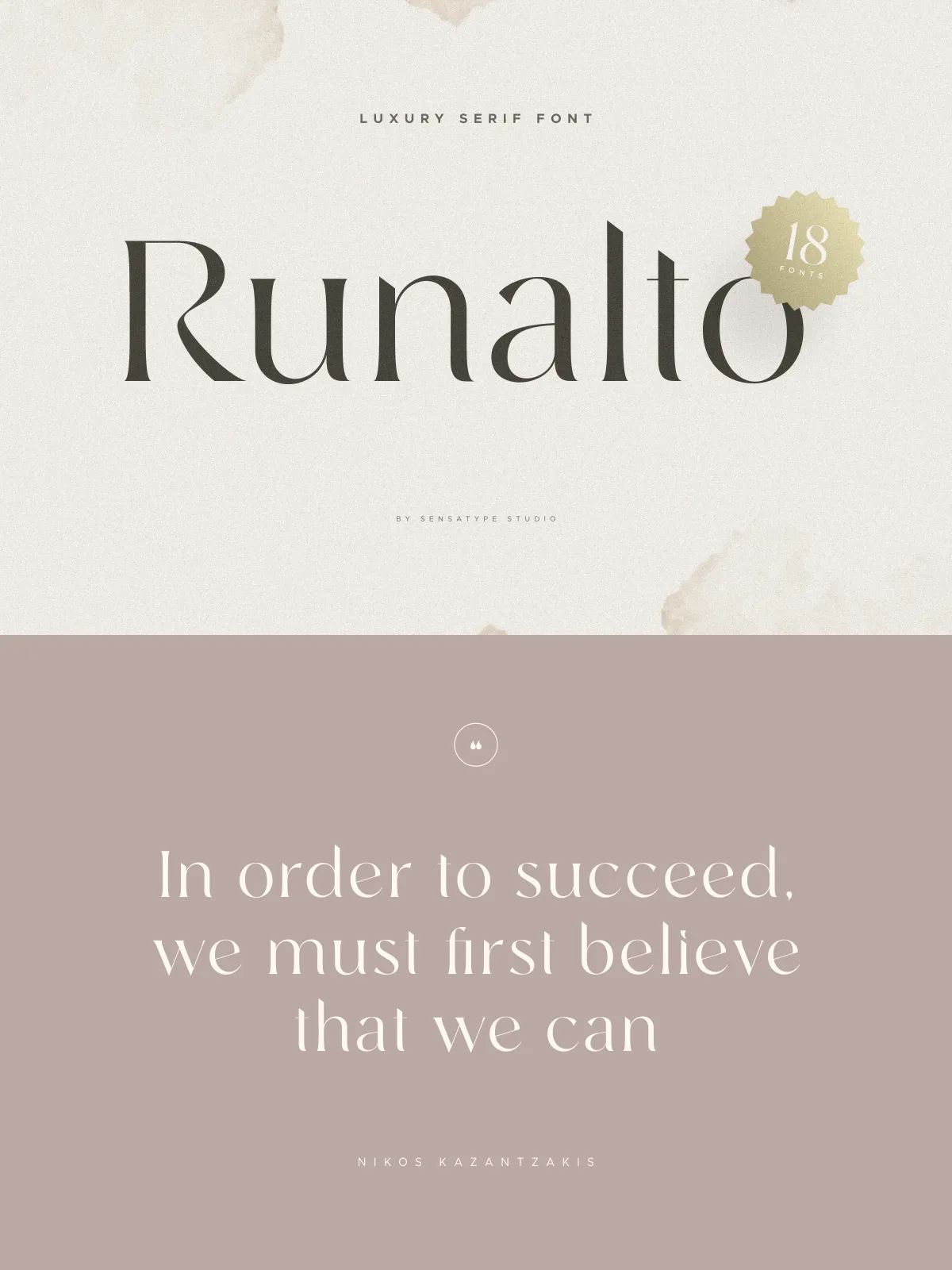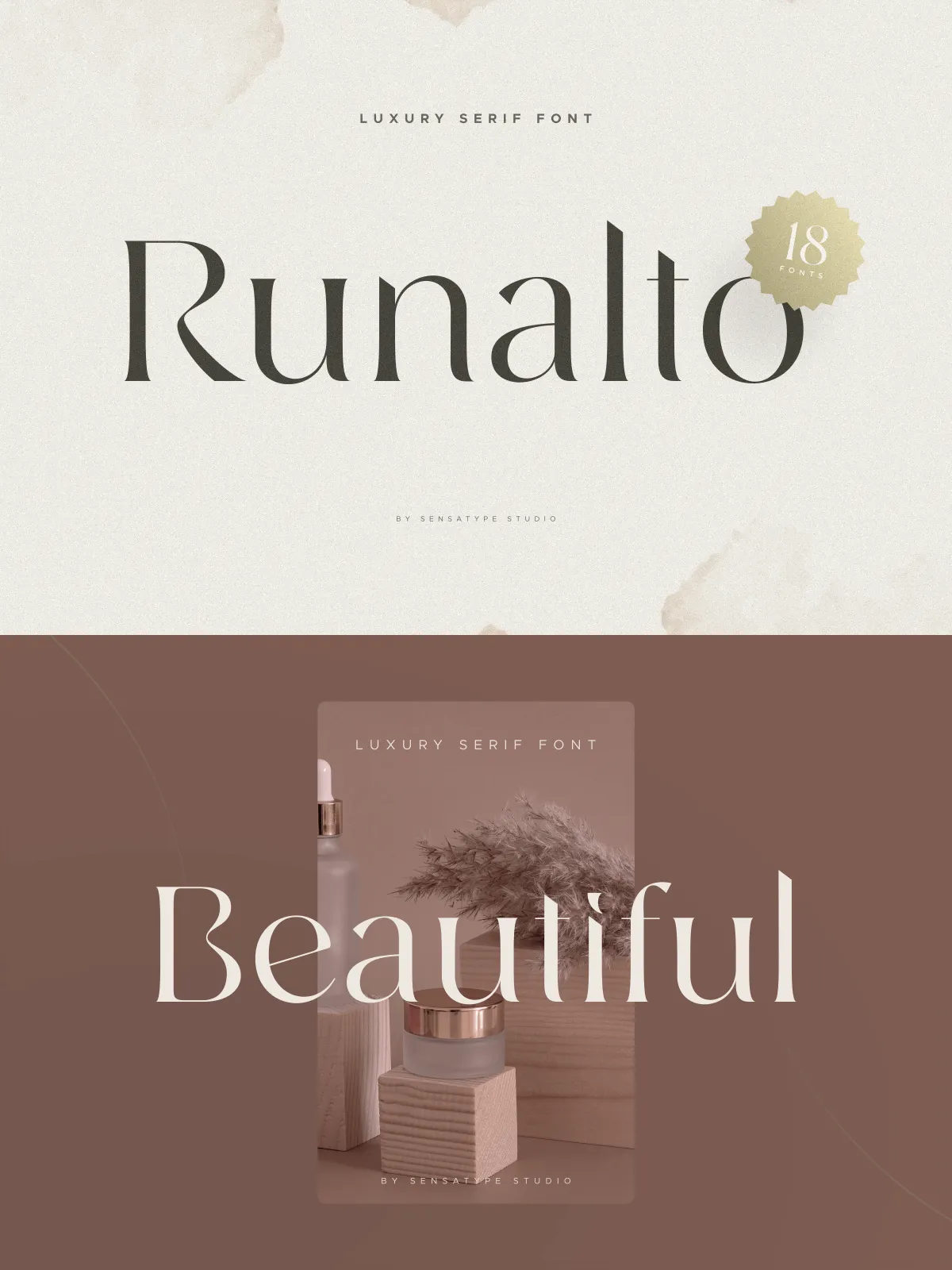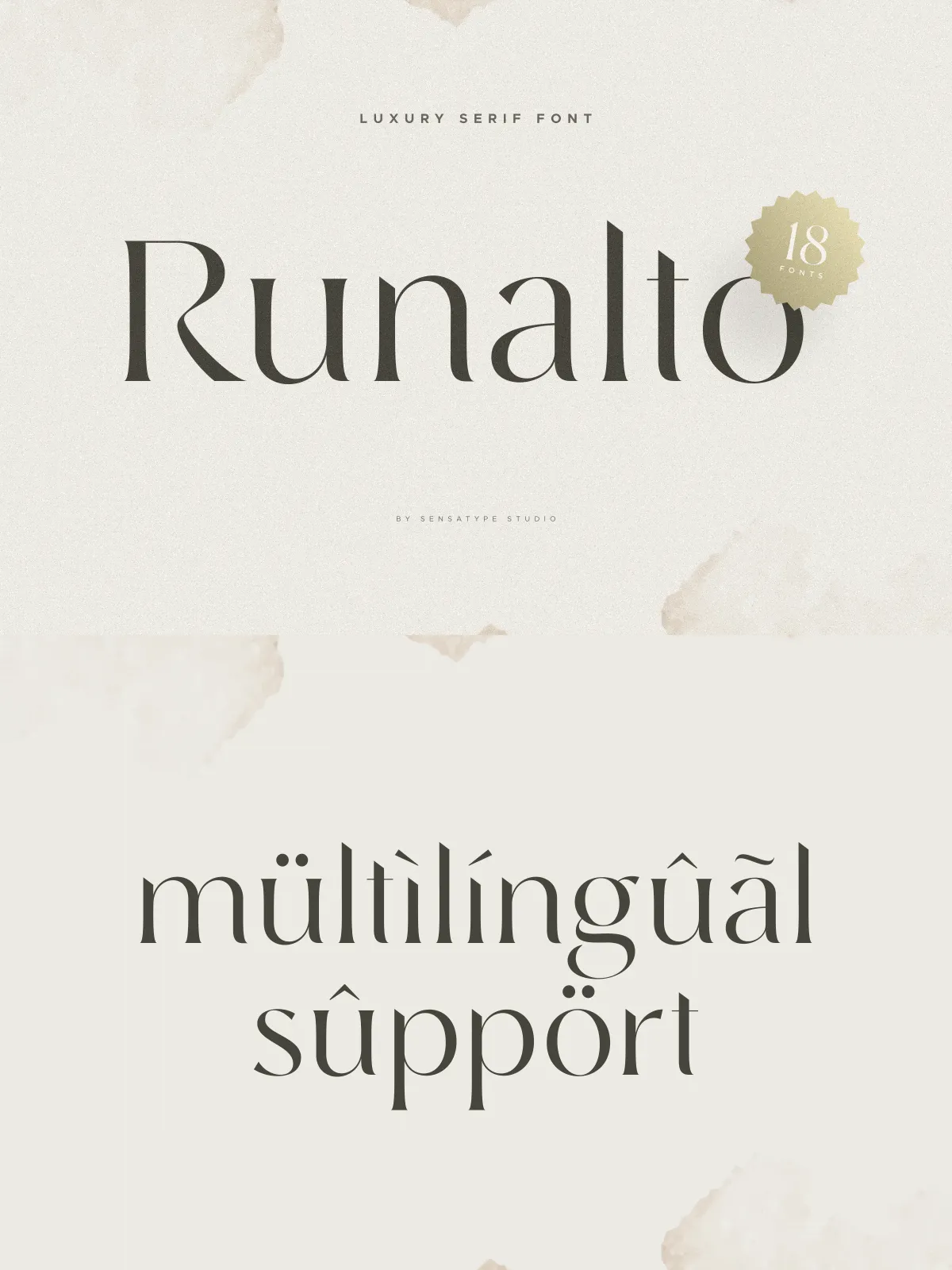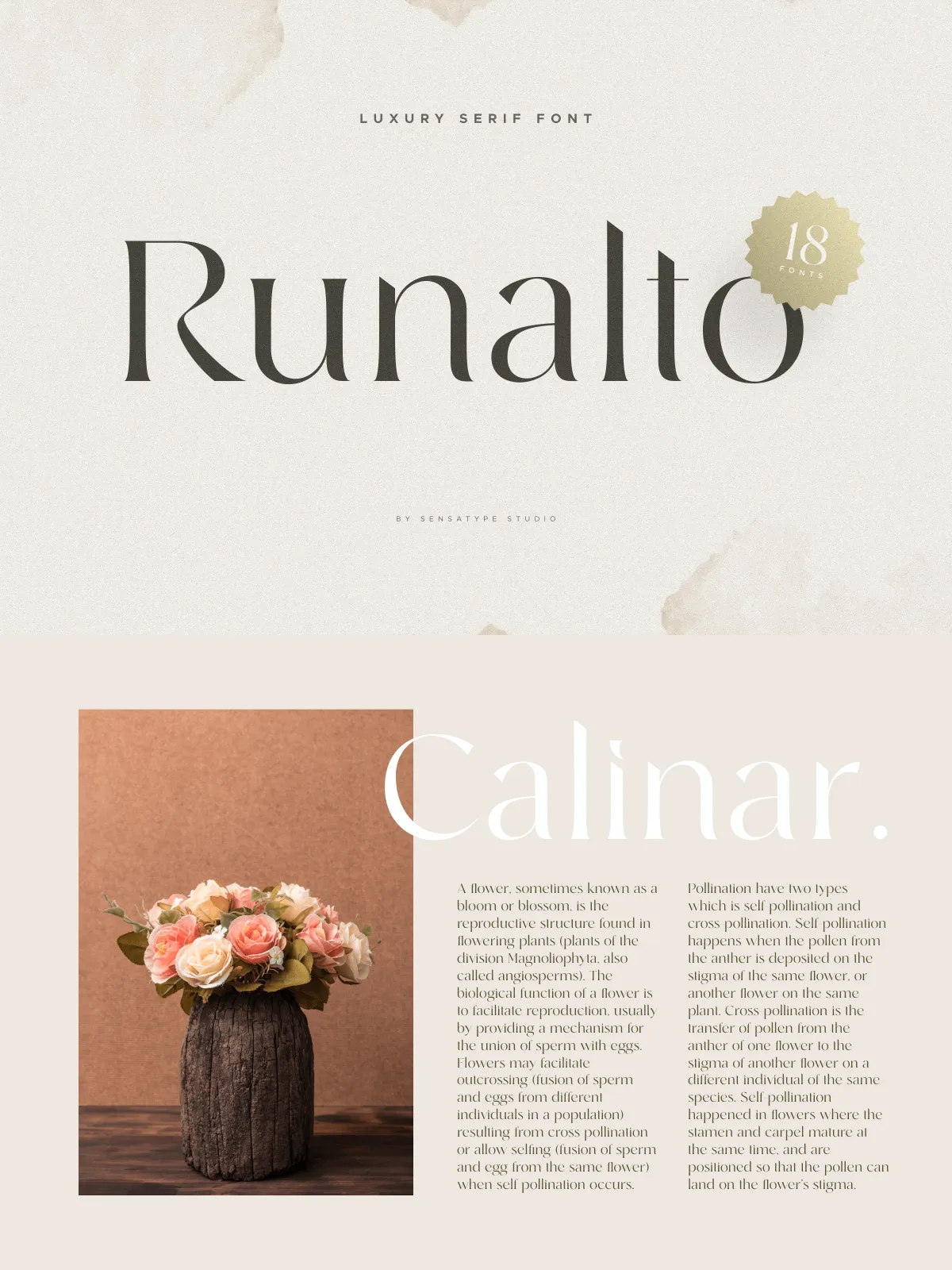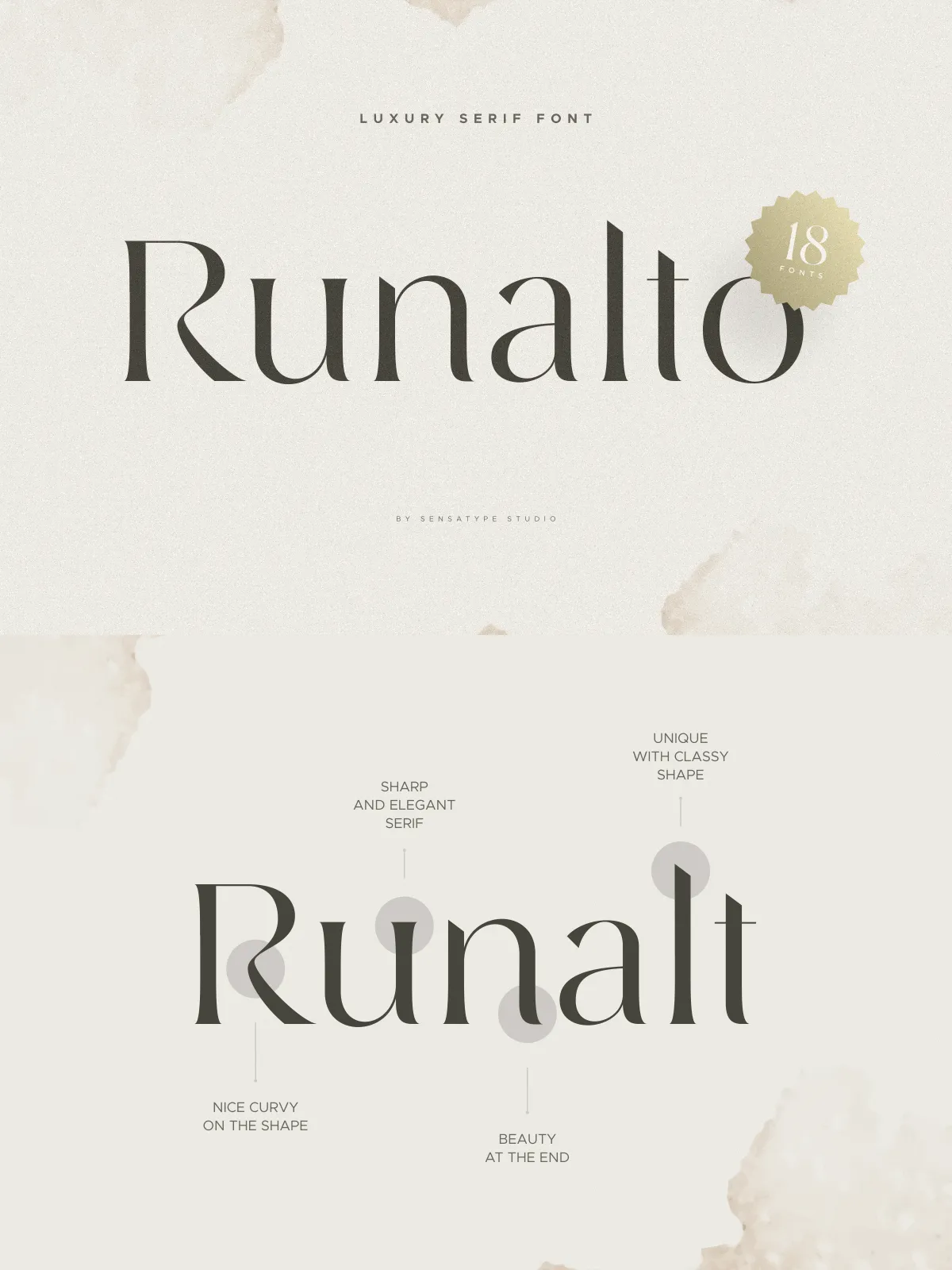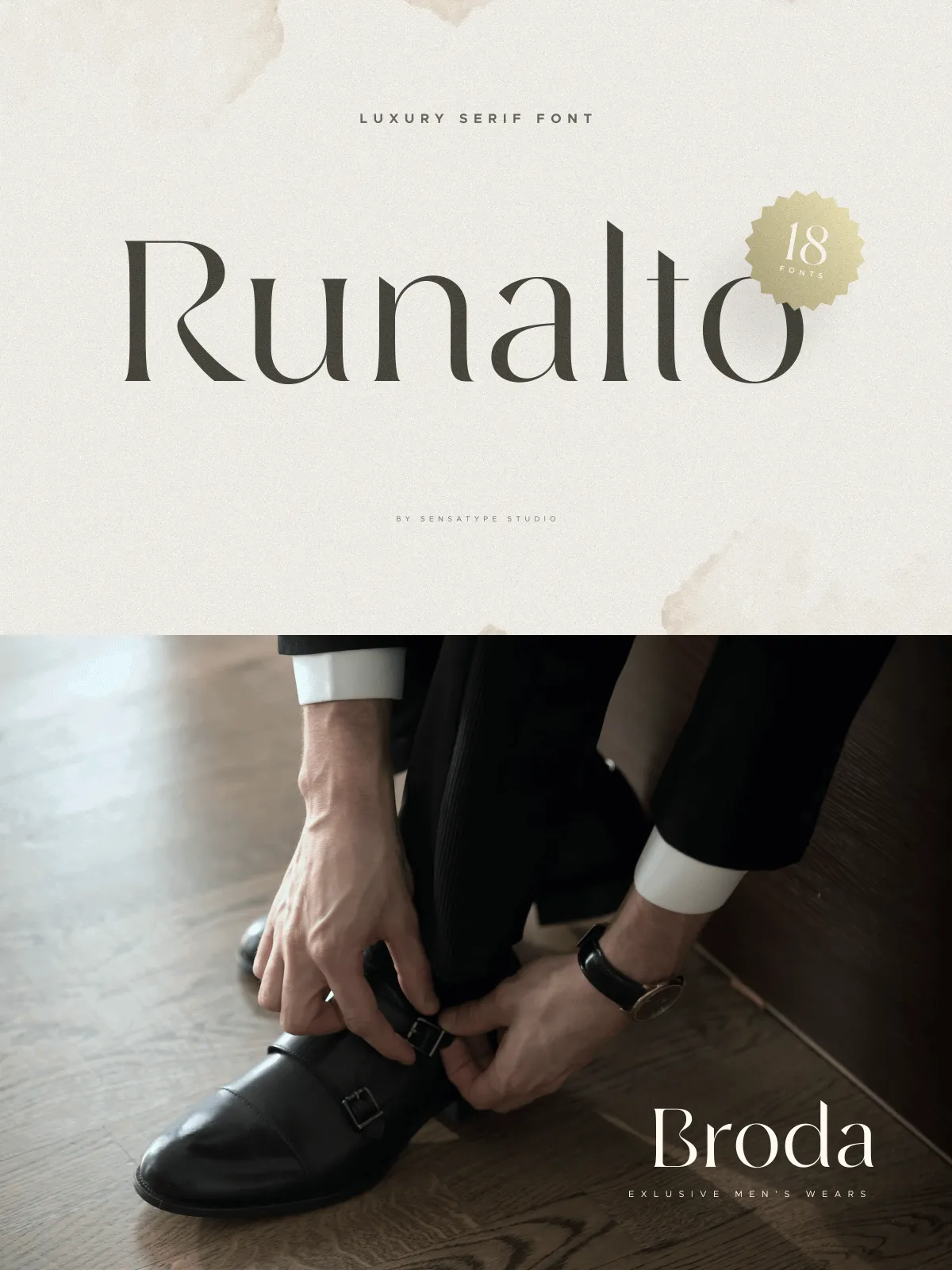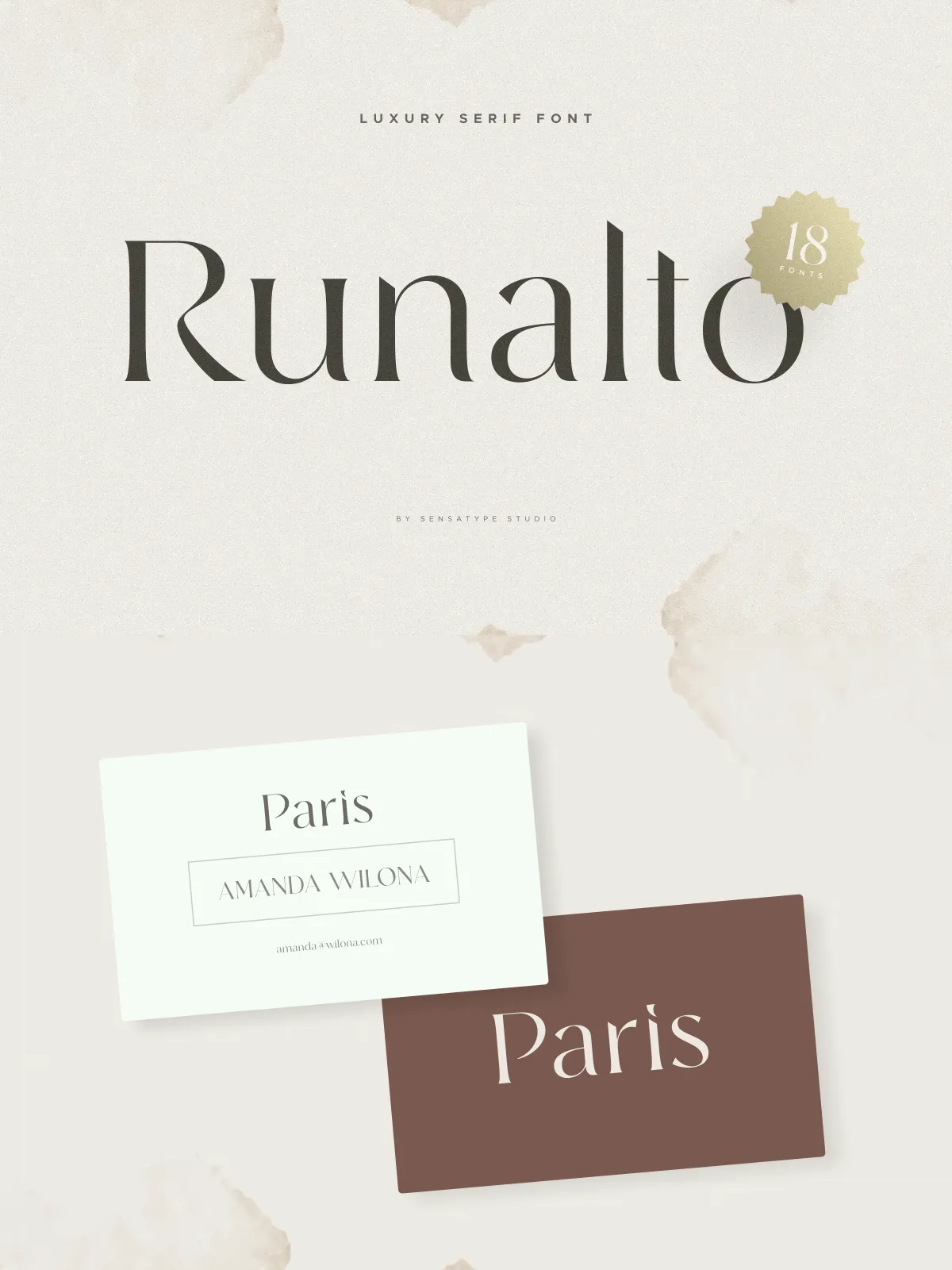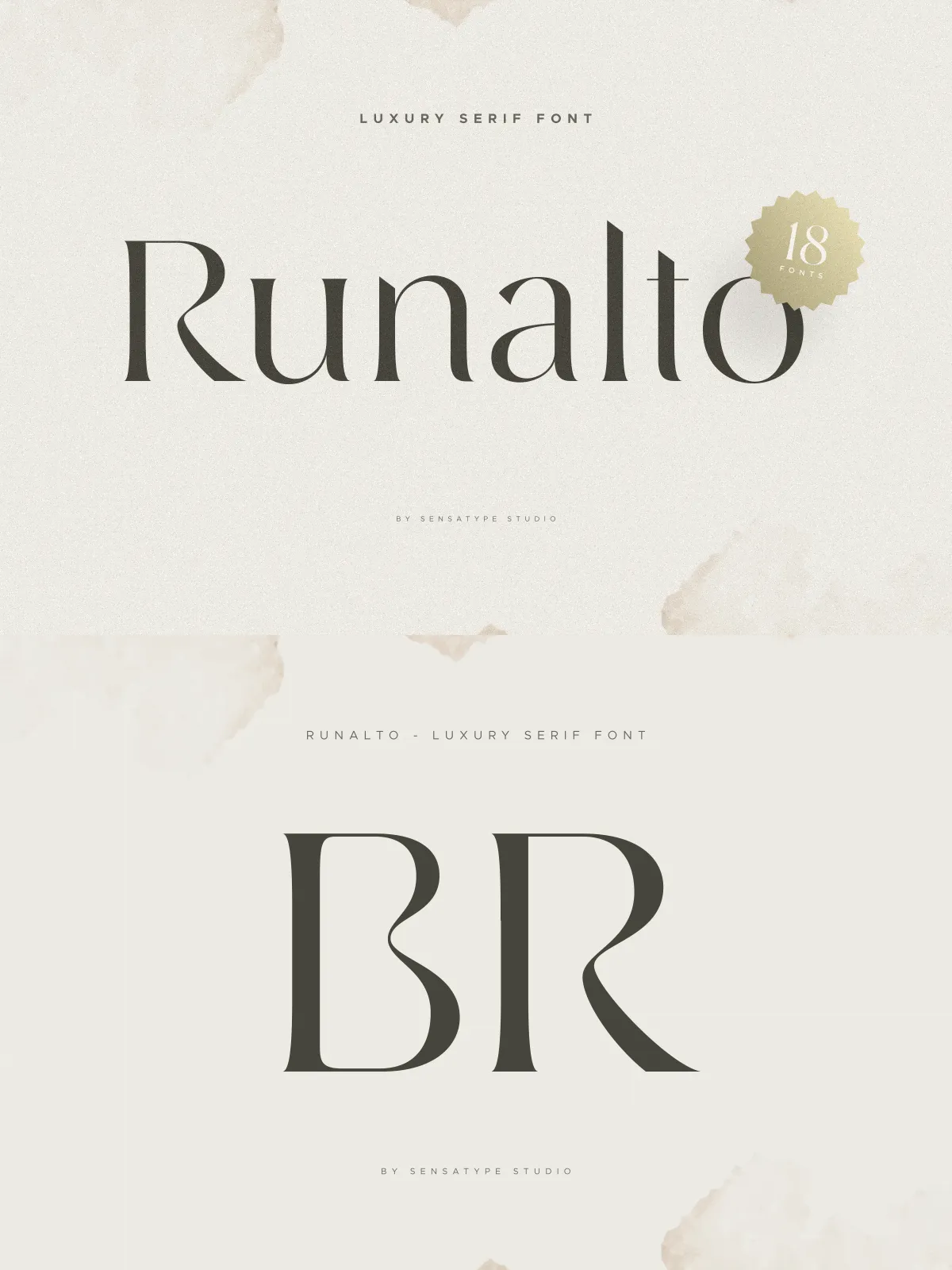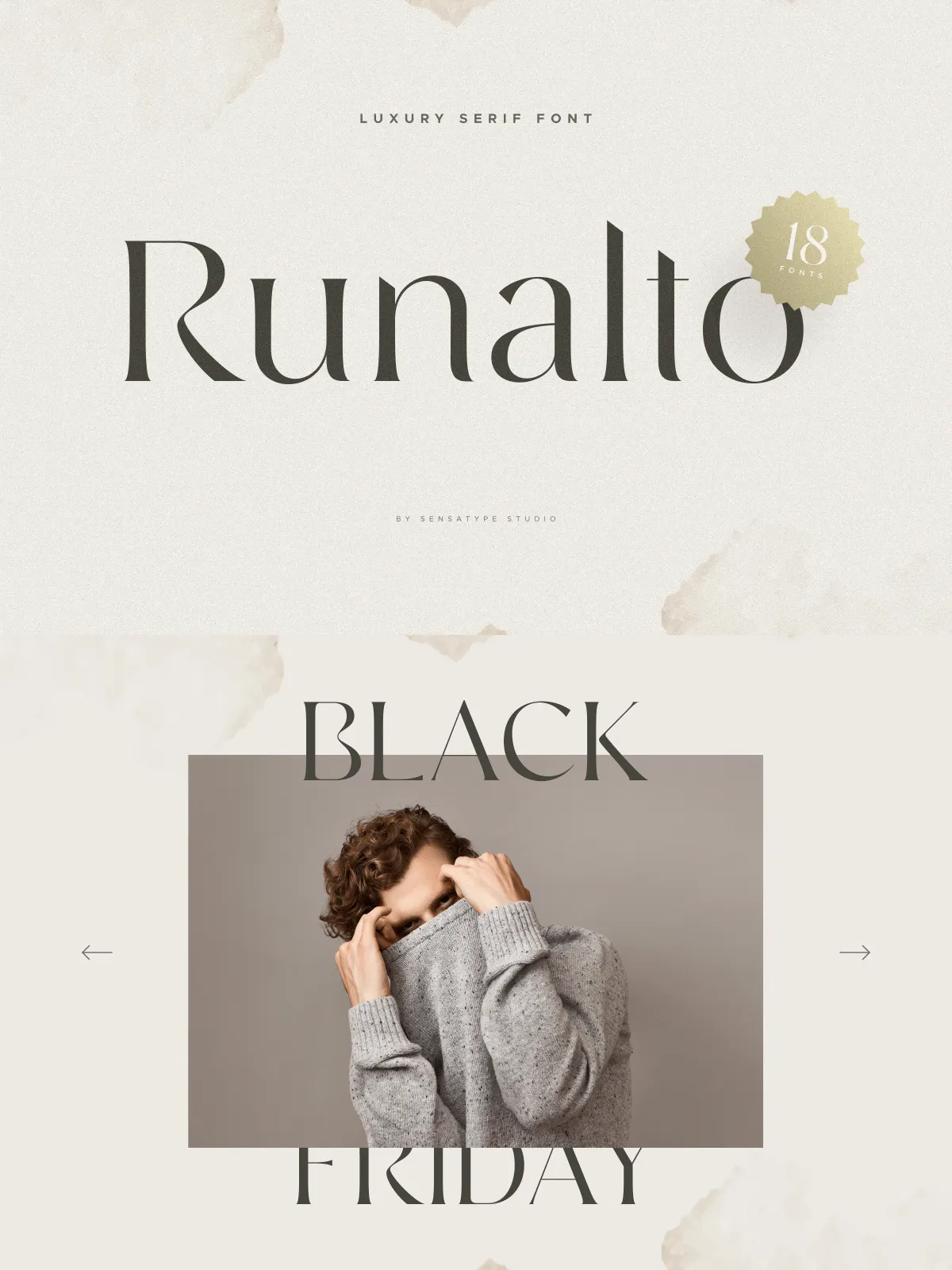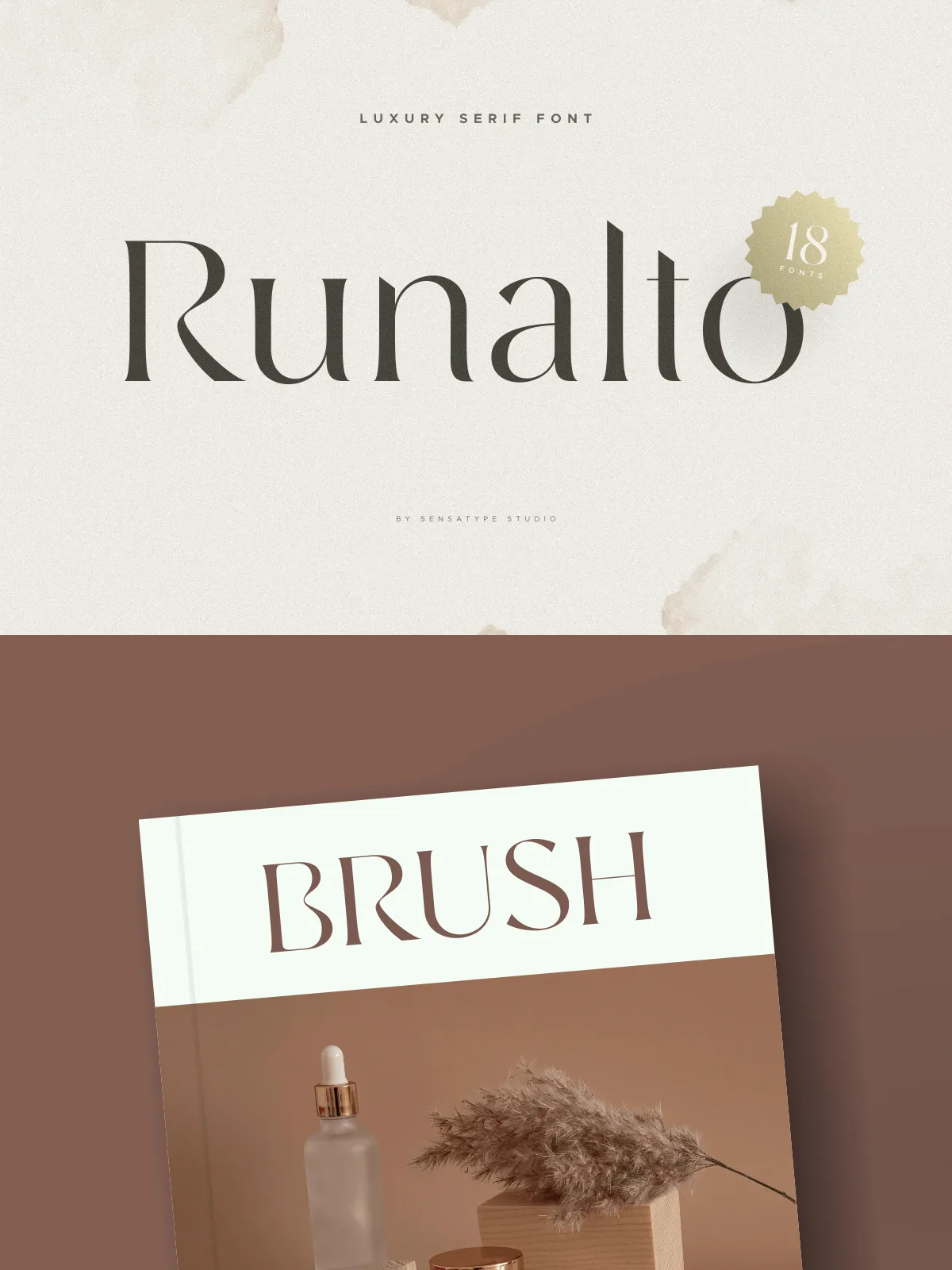
Runalto is a meticulously crafted display serif font that embodies luxury, elegance, and modernity. Designed to stand out with its unique and classy appearance, Runalto is the perfect typographic choice for projects that demand a sophisticated and upscale aesthetic. Whether you are working on magazine layouts, social media graphics, branding, logos, or any creative endeavor that requires a touch of luxury, Runalto delivers a refined and polished look that elevates your design.
Distinctive Features of Runalto
Runalto’s design combines classic serif elements with contemporary flair, resulting in a font that is both timeless and fresh. Its carefully balanced strokes and refined details create a harmonious visual rhythm that captures attention and conveys professionalism. The font’s versatility allows it to function effectively in various contexts, from bold headlines to elegant branding materials.
Comprehensive Character Set for Versatile Use
Runalto includes a full set of uppercase and lowercase letters, ensuring flexibility in typographic expression. It also supports a wide range of multilingual characters, making it suitable for international projects and diverse audiences. Additionally, the font contains numerals and punctuation marks, providing all the essential elements needed for complete and polished text compositions.
Applications and Ideal Use Cases
Runalto’s luxurious and modern style makes it an excellent choice for a variety of creative projects, including:
- Magazine Design: Create striking headlines and elegant editorial layouts that captivate readers.
- Social Media: Enhance your posts and advertisements with a sophisticated typographic presence.
- Branding: Develop memorable logos and brand identities that communicate luxury and professionalism.
- Packaging: Add a refined touch to product labels and packaging designs.
- Event Invitations: Design classy invitations for weddings, galas, and upscale events.
Why Choose Runalto?
- Elegant and Unique Design: Stand out with a font that combines luxury and modernity.
- Versatile Usage: Suitable for a wide range of projects across print, digital, and web platforms.
- Comprehensive Character Support: Includes uppercase, lowercase, numerals, punctuation, and multilingual characters.
- Professional Quality: Crafted with attention to detail for high-end design needs.